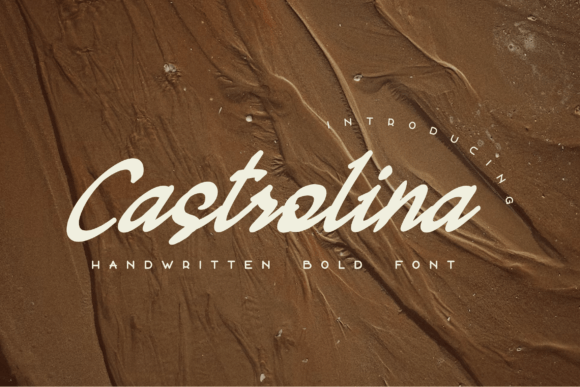
Have you ever been stuck on a design project, struggling to find the perfect font to bring your vision to life? You’re browsing through font libraries, scrolling through online marketplaces, and still, nothing seems to capture the essence of your idea. That’s where the magic of Castrolina Font comes in – an elegant and modern bold handwritten font designed to elevate your designs and leave a lasting impression.
Castrolina Font is the perfect addition to any designer’s toolkit, offering a unique blend of sophistication and playfulness that’s ideal for fashion, apparel, signatures, album covers, logos, branding, magazines, social media, advertisements, and more. With its versatility and charm, Castrolina Font is sure to become a go-to choice for designers looking to add a touch of personality to their projects.
Castrolina Font Key Features
- Unique Characteristics: Features a unique, hand-drawn style with a touch of elegance and sophistication
- Font Family: Castrolina is a script font family with multiple weights and styles
Castrolina Font Review
I recently had the chance to work with the Castrolina font, and I must say it’s a mixed bag. On the positive side, the font’s playful and whimsical feel ✨ makes it perfect for projects that require a touch of elegance and sophistication. The subtle flair at the end of the letters adds a delightful touch, making it stand out from more traditional fonts.
The Castrolina font also performs well in smaller text sizes, where the rounded edges help to create a smooth reading experience ✨. Additionally, the font is highly legible, making it suitable for a wide range of applications, from body text to headings.
While the Castrolina font has its strengths, there are a few areas where it falls short ⚠️. For one, the font can be a bit too ornate for some projects, making it difficult to read in certain contexts. Additionally, the font’s weight is relatively consistent across sizes, which can make it look a bit flat in certain applications ⚠️.
Overall, the Castrolina font is a solid choice for designers looking for a unique and elegant font. While it may not be suitable for all projects, it’s a great option for those who want to add a touch of sophistication and whimsy to their designs.
- Playful and whimsical feel
- Subtle flair at the end of the letters
- Highly legible
- Perfect for projects requiring elegance and sophistication
Castrolina Font is ideal for:
- Brand identities and logos
- Marketing materials and advertisements
- Editorial content and articles
For optimal results, use the Castrolina Font in conjunction with a clean and modern design aesthetic.
Alex Brush is a beautiful, elegant script font perfect for creating elegant and sophisticated designs. It’s ideal for use in branding, advertising, and editorial content. When to use: For projects that require a touch of elegance and sophistication, such as luxury product branding, high-end fashion branding, and editorial content. Compared to Castrolina Font: While both fonts are elegant, Alex Brush has a more refined and delicate feel, making it perfect for use in designs that require a touch of sophistication.